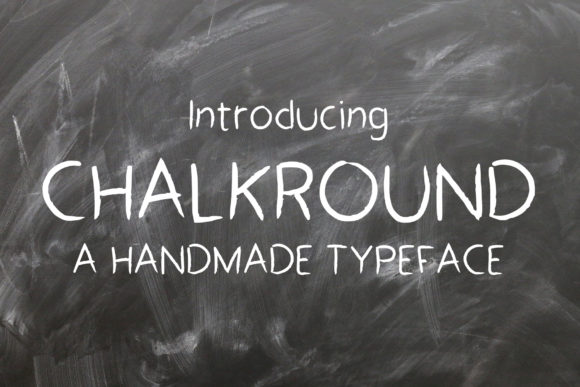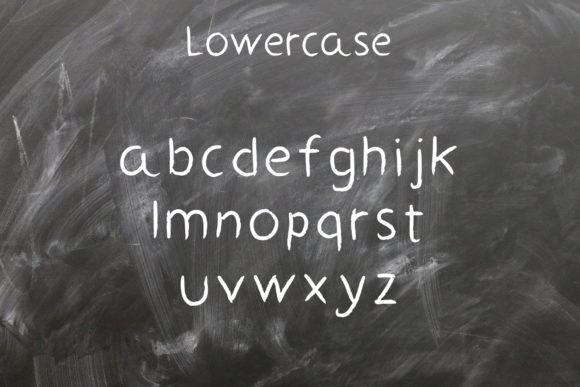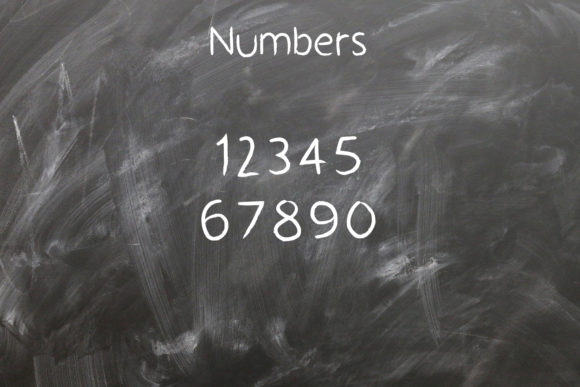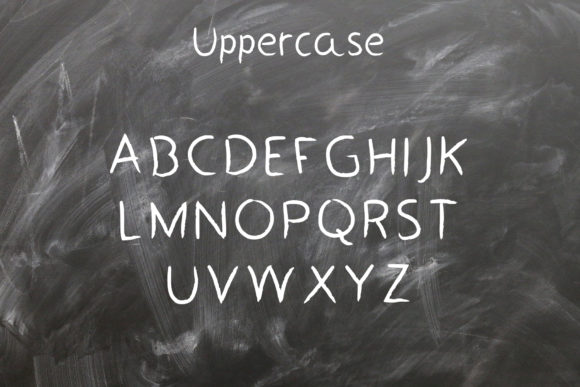
ChalkRound Font
About ChalkRound Font
ChalkRound is a fun and casual handwritten font. It is suitable for any branding, product packaging, invitation, quote, t-shirt, label, poster, logo that you wish to bring to life.